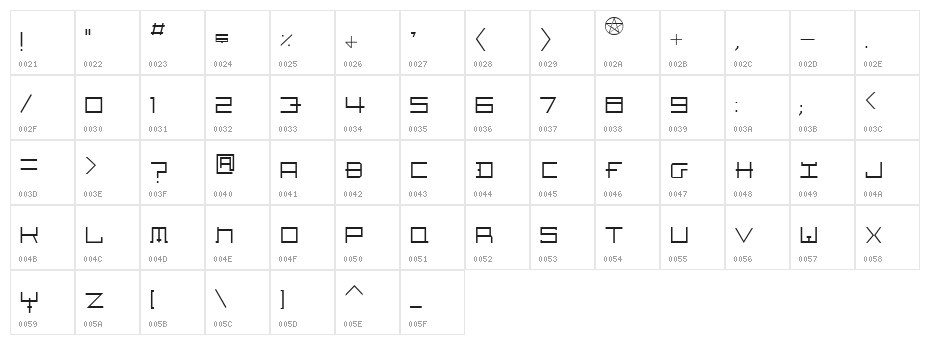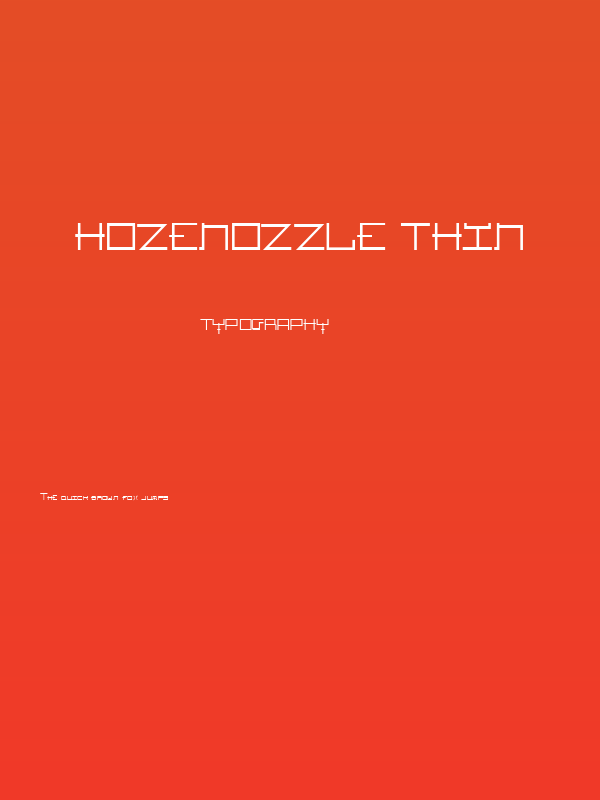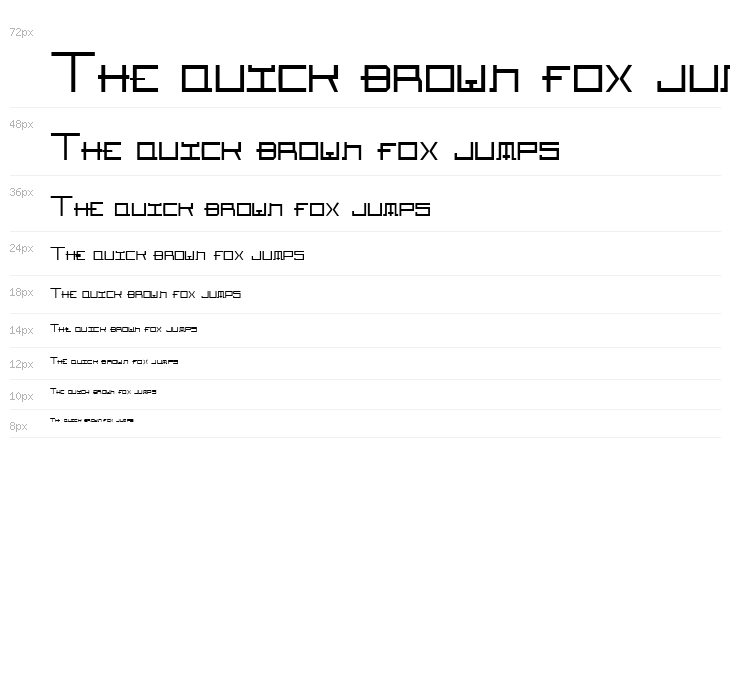
Hozenozzle Thin Font
Hozenozzle Thin Description
This font features a geometric and futuristic design with a distinctly digital aesthetic. The characters are composed of straight lines and sharp angles, giving it a technical and modern appearance. The uppercase and lowercase letters maintain a consistent style, with uniform line thickness and minimal curves. The numerals and special characters follow the same design principles, ensuring a cohesive look across all glyphs. The font's structure is clean and precise, making it suitable for projects that require a contemporary and innovative feel.
| Proposed Projects | Ideal for tech branding, digital interfaces, modern posters, and sci-fi themed designs. |